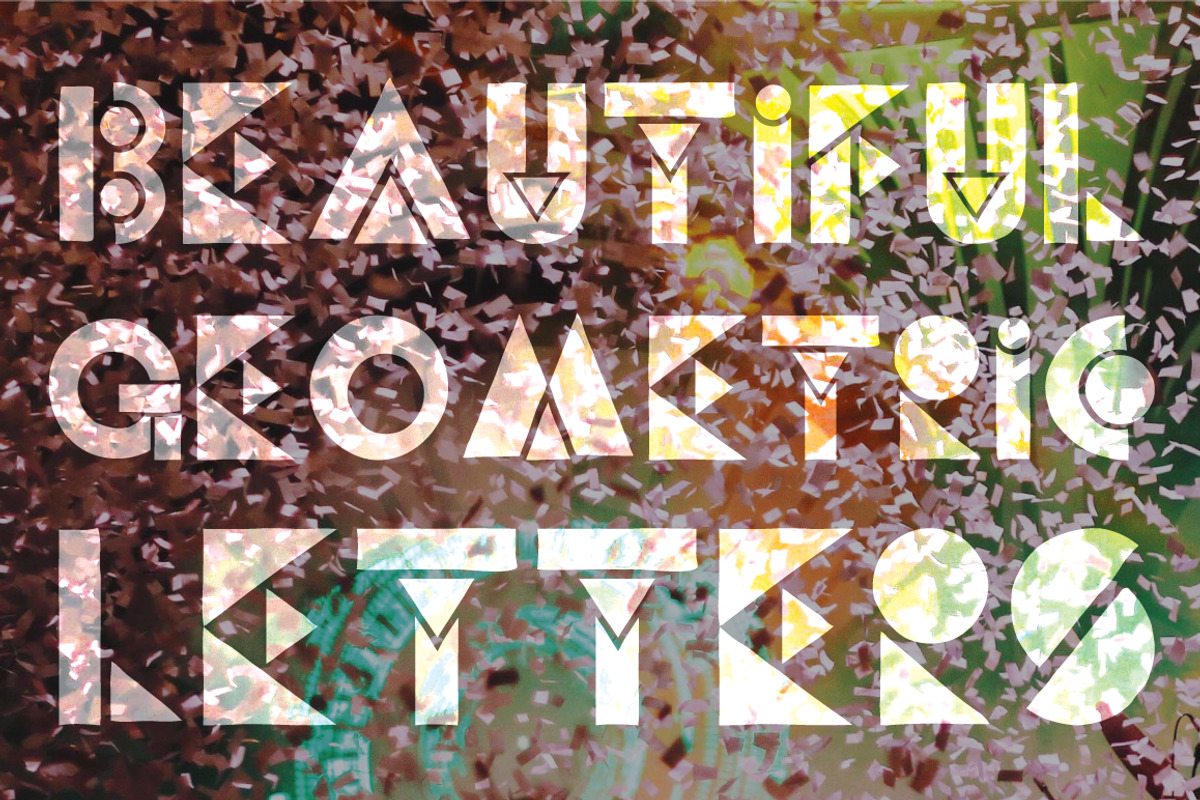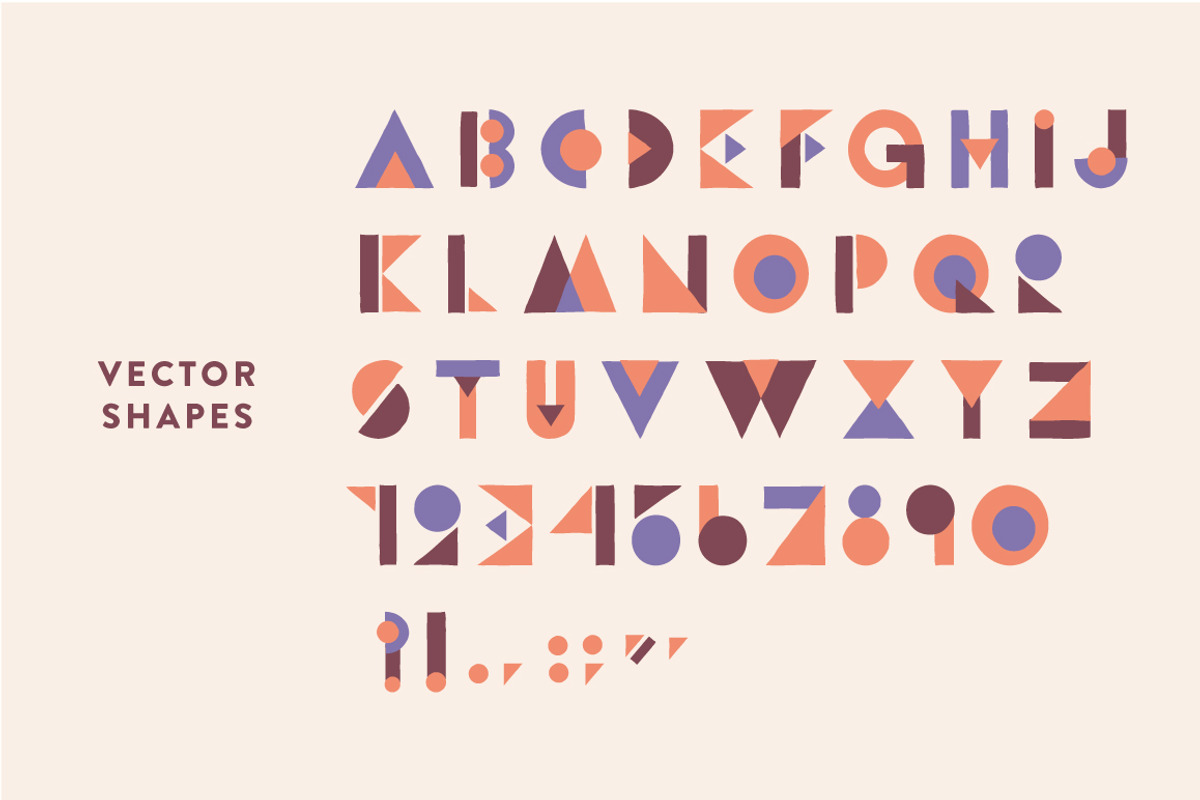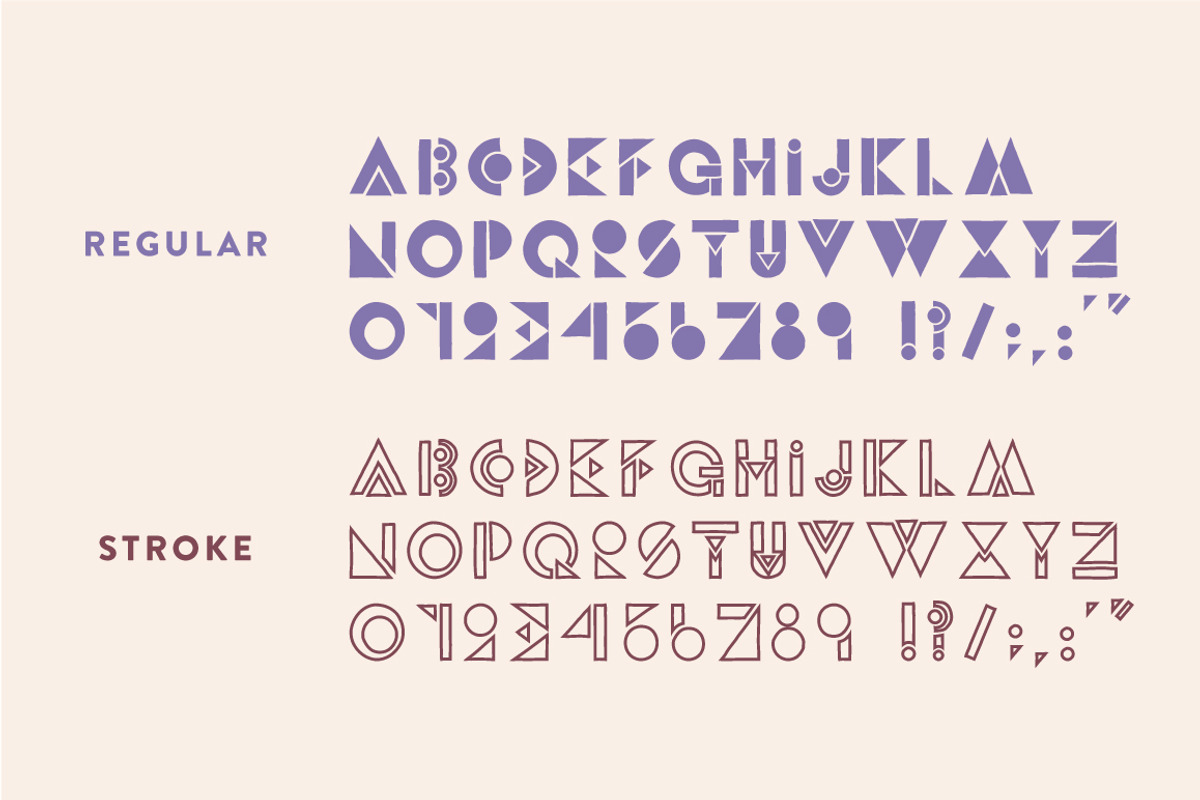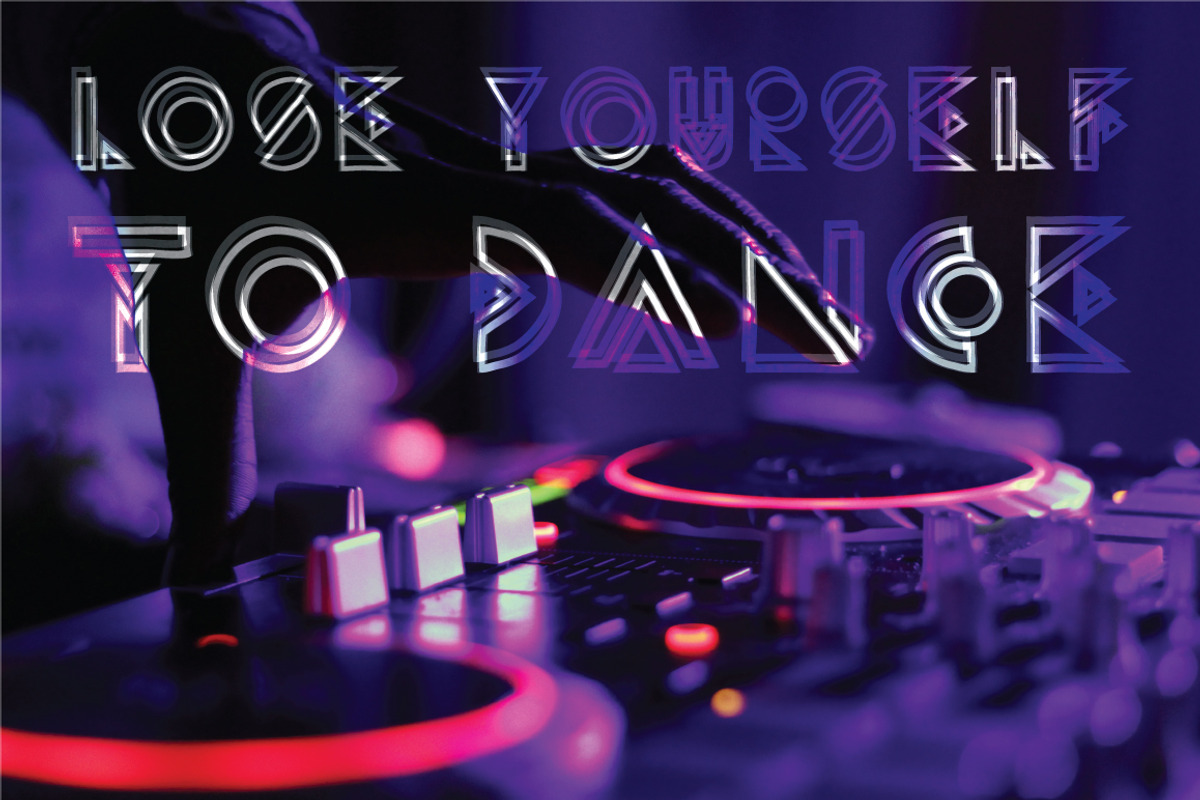
Party Down - Geometric Font
Party Down - Geometric Font by Jordan Dale Young is a font selected for branding, posters, packaging, typography.
- Uppercase alphabet A-Z
- Small caps for lowercase A-Z
- Numbers 0-9
- Special characters !?,.:;/'"
Why Party Down - Geometric Font is worth a look
Party Down - Geometric Font by Jordan Dale Young fits naturally into Branding, posters, packaging, typography.